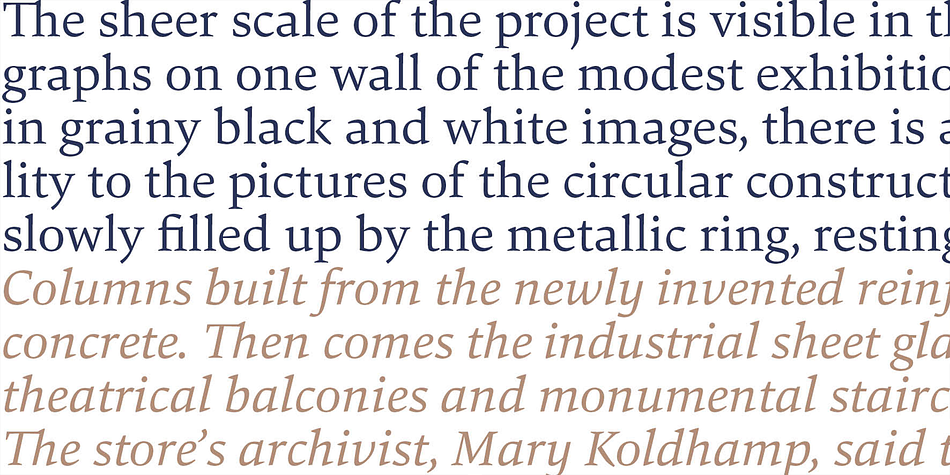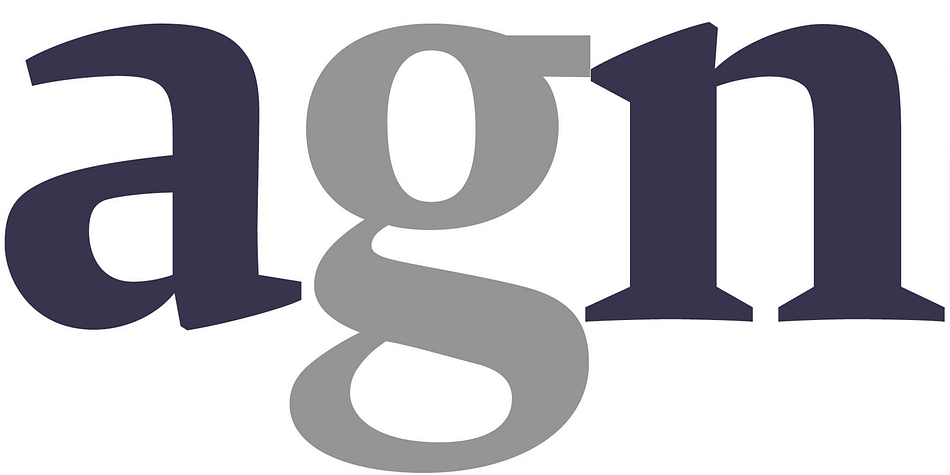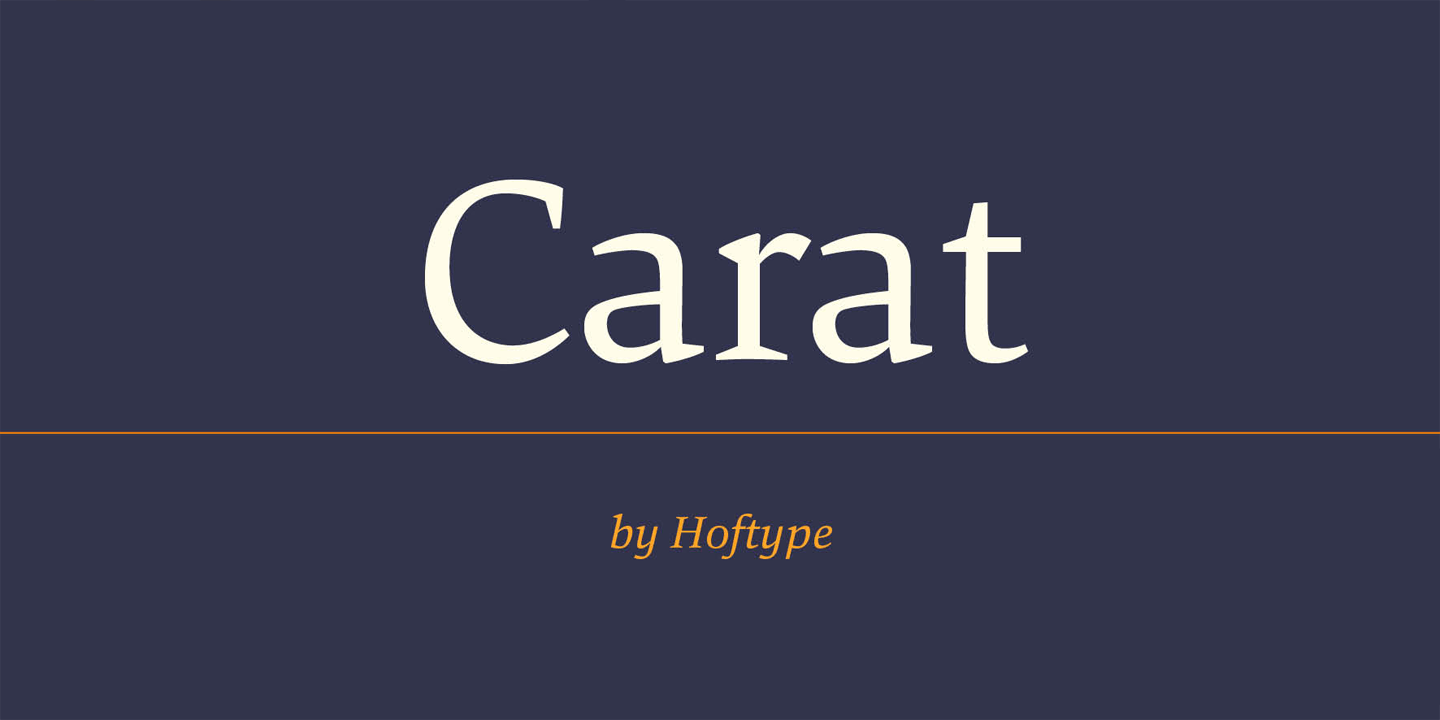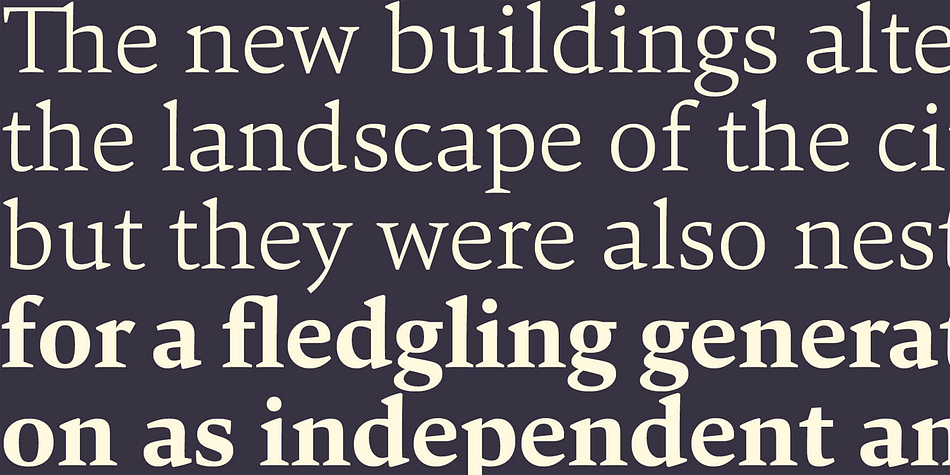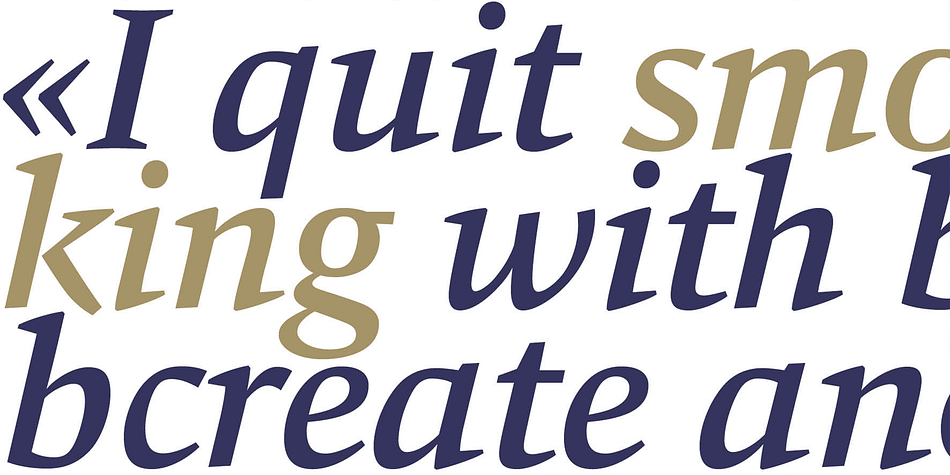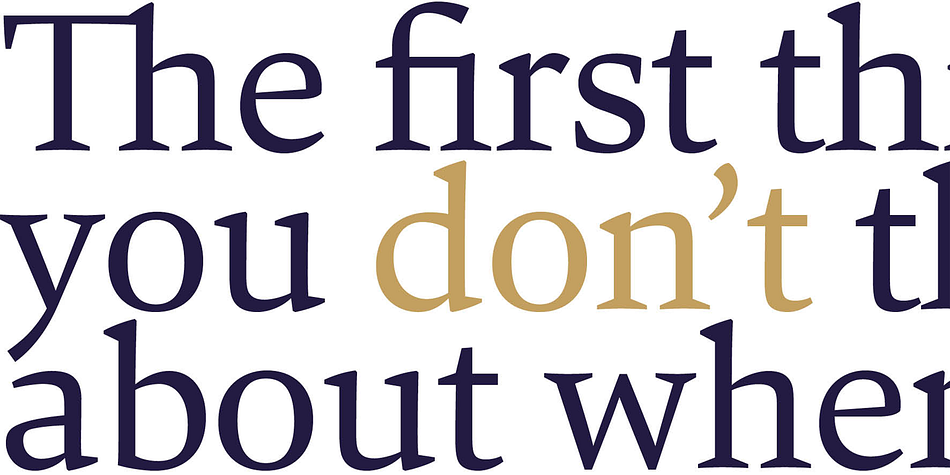
Carat is a serif font family. This typeface has twelve styles and was published by Hoftype.
Carat is a contemporary interpretation of a classic serif type. Fresh and clean in appearance. Straight, unsentimental and objective. Ideally suited for text but also with crisp details in display.
Well-equipped for ambitious typographie, the Carat family consists of 12 styles, comes in OpenType format with extended language support for more than 40 languages. All weights contain small caps, proportional lining figures, tabular lining figures, proportional old style figures, lining old style figures, matching currency symbols, fraction- and scientific numerals.